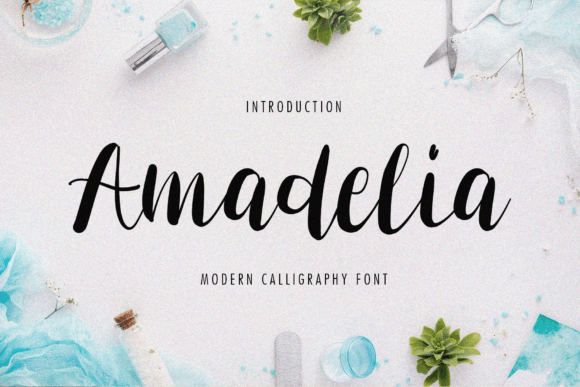
Introducing Amadelia Font: Elevate Your Designs with Elegant Calligraphy
Are you a designer or crafter looking for a unique and elegant font to add a touch of sophistication to your projects? Look no further than Amadelia Font, a stunning calligraphy font that is sure to impress. With its beautiful, flowing script and versatile design, Amadelia is the perfect choice for a variety of projects, from wedding invitations and thank you cards to greeting cards, logos, and more.
The Beauty of Amadelia Font
Amadelia Font is a true masterpiece of calligraphy, with delicate lines and curves that exude elegance and refinement. Its unique and sophisticated design makes it stand out from other fonts, and its versatility ensures that it can be used in a wide range of applications. Whether you’re creating a formal wedding invitation or a playful greeting card, Amadelia Font is sure to add a touch of class and sophistication to your design.
Perfect for Personalized Designs
One of the best things about Amadelia Font is its ability to add a personal touch to your designs. With its elegant script and flowing curves, Amadelia is perfect for creating customized designs that reflect your personality and style. Whether you’re a professional designer or a crafty DIY enthusiast, Amadelia Font is sure to inspire your creativity and help you create beautiful, one-of-a-kind designs.
Use Amadelia Font for:
- Wedding invitations and wedding stationery
- Greeting cards and holiday cards
Why Choose Amadelia Font?
So why choose Amadelia Font over other calligraphy fonts? Here are just a few reasons why Amadelia stands out:
- Unique and elegant design: Amadelia Font has a truly unique and elegant design that is sure to impress.
- Versatile: Amadelia can be used in a wide range of applications, from formal wedding invitations to playful greeting cards.
- Easy to read: Despite its elegant script, Amadelia Font is easy to read and understand, making it perfect for designs that require a clear and concise message.
- High-quality: Amadelia Font is a high-quality font that is designed to produce crisp, clear results, even at small sizes.
Tips for Using Amadelia Font
Here are a few tips for getting the most out of Amadelia Font:
- Use it sparingly: Amadelia Font is a statement font, so use it sparingly to add emphasis and elegance to your design.
- Pair it with a simple font: Amadelia Font looks best when paired with a simple, clean font. Try pairing it with a sans-serif font like Arial or Helvetica.
- Experiment with colors: Amadelia Font looks beautiful in a variety of colors, from classic black and white to bold and bright hues. Experiment with different colors to find the perfect look for your design.
In conclusion, Amadelia Font is a unique and elegant calligraphy font that is perfect for designers and crafters looking to add a touch of sophistication to their projects. With its beautiful, flowing script and versatile design, Amadelia is sure to inspire your creativity and help you create stunning, one-of-a-kind designs. So why wait? Try Amadelia Font today and see the difference it can make in your designs!